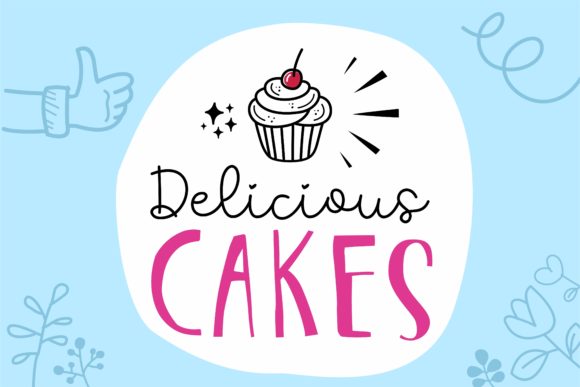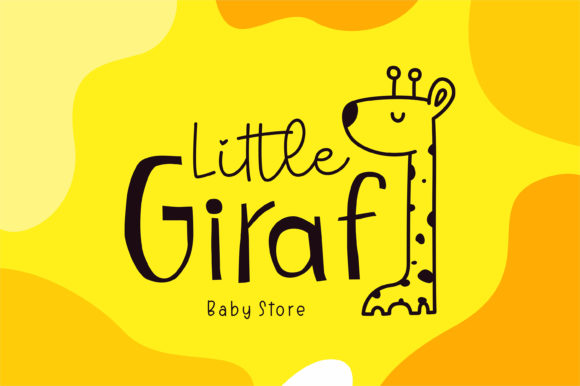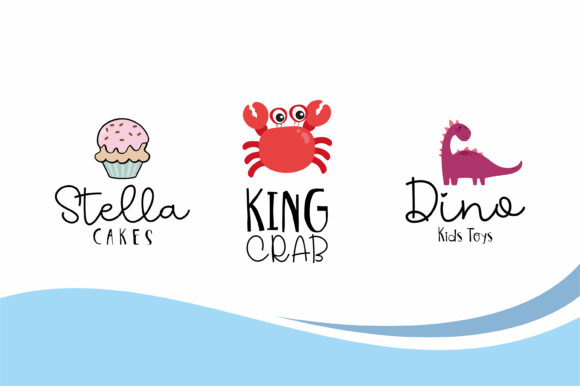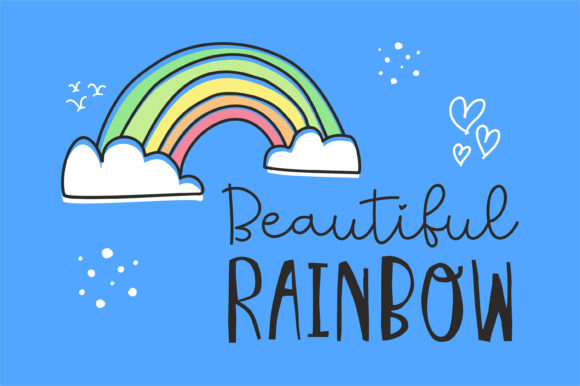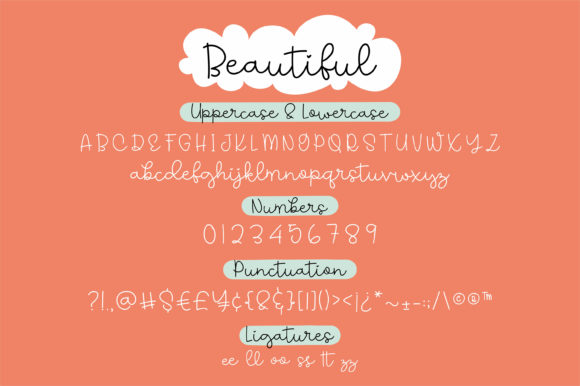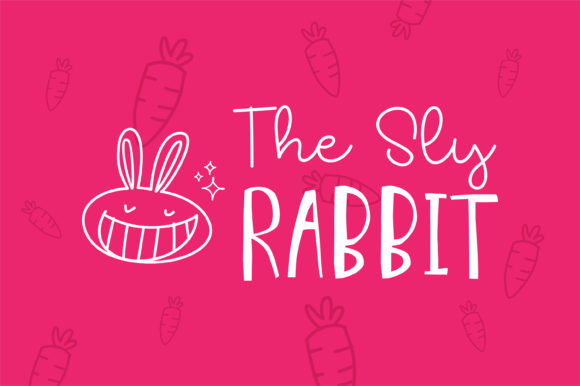
The Perfect Font for Your Next Design Masterpiece
Have you ever been in the middle of a design project, staring at a blank page, trying to come up with the perfect font to match your vision? We’ve all been there. But sometimes, all it takes is one glance at a beautiful calligraphy typeface to bring your ideas to life. That’s where Beautiful Child Font comes in – a romantic and sweet calligraphy typeface that adds a touch of luxury to any design project.
This beautiful font is perfect for designers who want to create a unique and eye-catching visual identity. With its elegant characters that dance along the baseline, Beautiful Child Font is sure to add a personal touch to your designs. Whether you’re creating a wedding invitation, a branding campaign, or a special announcement, this font is sure to make your design stand out.
Beautiful Child Font Key Features
- Font Family: Beautiful Child, a modern and elegant script font.
- Unique Characteristics: Features a unique blend of cursive and handwritten styles, making it perfect for creative and artistic projects.
Designer Review: Beautiful Child Font
First impressions are everything, and the Beautiful Child Font certainly delivers on that front. The first thing that caught my eye is the delicate, childlike quality to the font. ✨ It’s perfect for projects that need a touch of whimsy and playfulness. The font is well-suited for titles, headings, and other emphasis points, where you want to draw attention to specific text.
One of the things I like most about Beautiful Child Font is its versatility. It comes in a range of weights, from light to bold, allowing you to tailor the font to suit your design needs. The font also works well in digital and print formats, making it a great choice for a wide range of projects.
- Delicate, childlike quality perfect for whimsical designs
- Well-suited for titles, headings, and emphasis points
- Range of weights for versatility
- Works well in digital and print formats
- May be too playful for formal or corporate designs
- Not ideal for large blocks of text, as it can be difficult to read
- May require additional styling to achieve desired look
Overall, I think the Beautiful Child Font is a great addition to any designer’s toolkit. While it may not be suitable for every project, it’s perfect for designs that need a touch of whimsy and playfulness. With its range of weights and versatility, it’s definitely worth considering for your next design project.
For optimal results, use the Beautiful Child Font in conjunction with a pastel color palette and soft textures.
Experiment with different font sizes and styles to create a visually appealing and engaging design.
The Beautiful Child Font is ideal for:
Children’s book illustrations and designs
Baby shower decorations and gifts